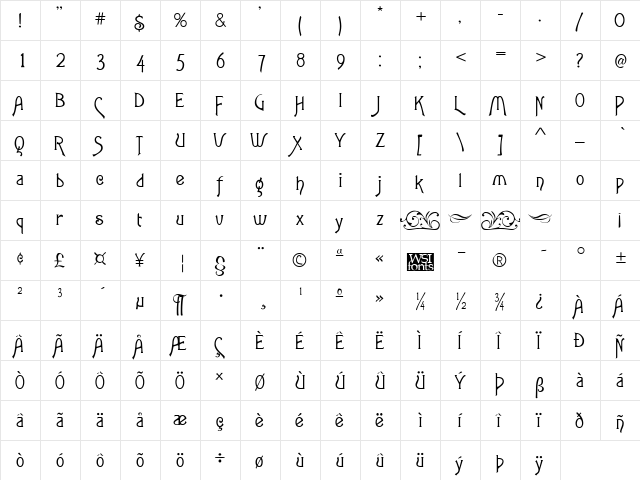
Agatha-Modern Regular
| Foundry | Alexandra Gophmann |
| Designer | Gophmann A.L |
Design Context for Agatha-Modern Typeface
Agatha-Modern is a composed and adaptable typeface that performs quietly and consistently across a wide range of design contexts.